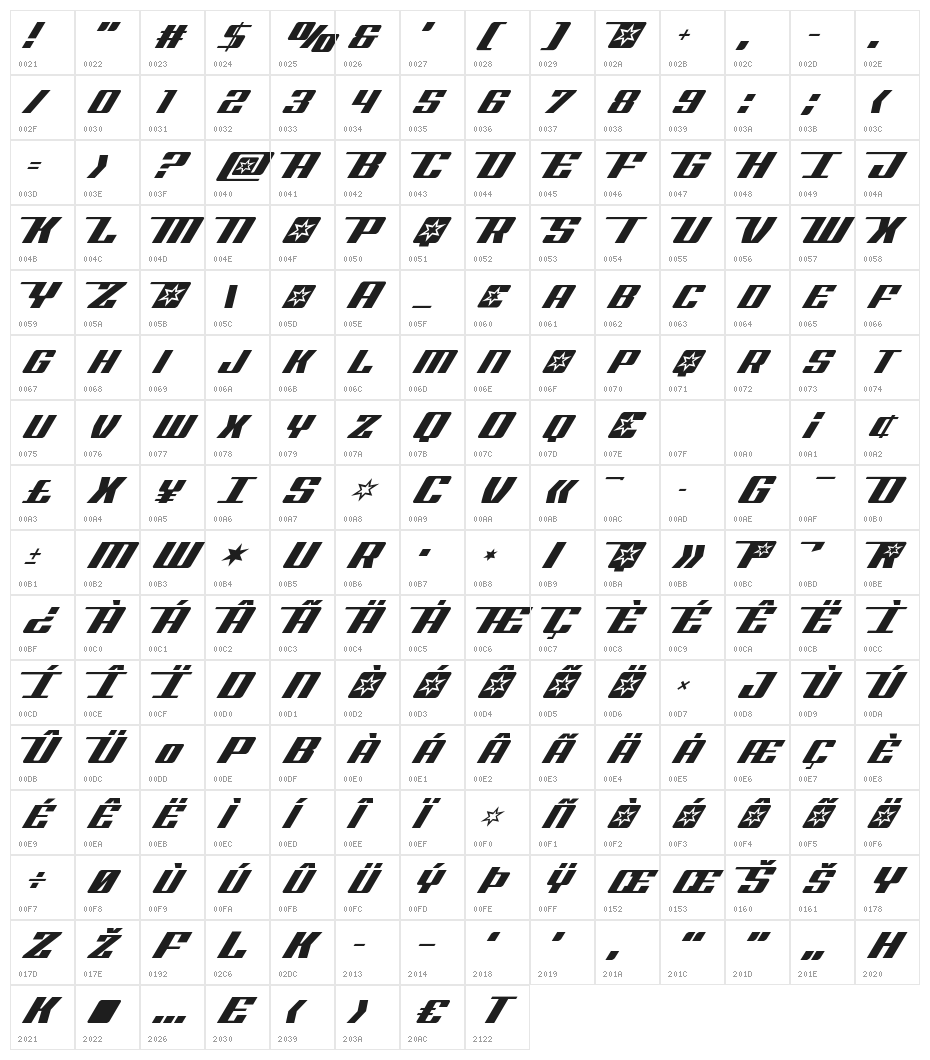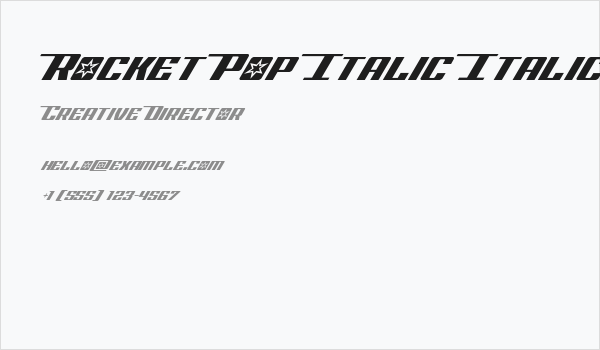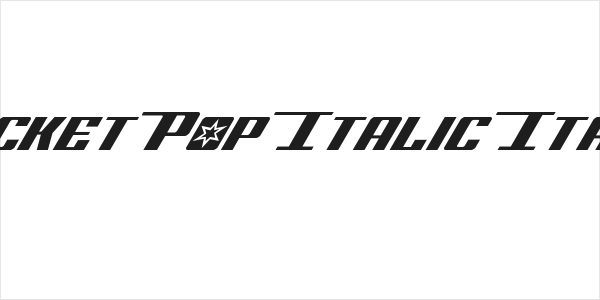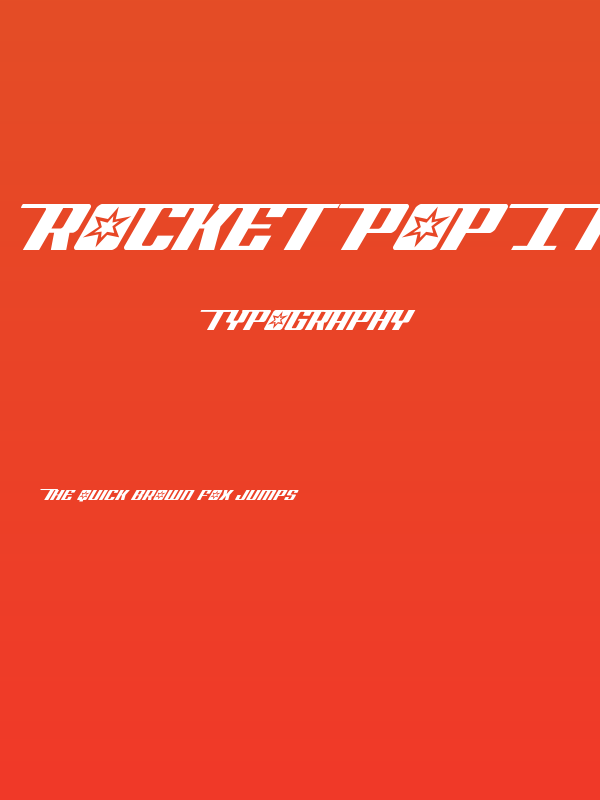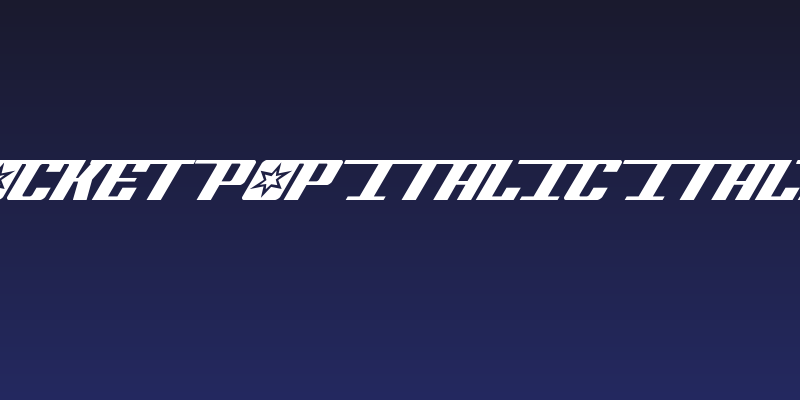
Rocket Pop Italic Italic Font
Rocket Pop Italic Italic Description
This font features a bold, italicized style with a distinct futuristic and dynamic appearance. The characters are sharply angled, giving a sense of movement and speed. The uppercase letters are particularly striking, with some characters incorporating star motifs, adding a unique decorative element. The numbers and special characters maintain the same bold and italicized style, ensuring consistency across all glyphs. The overall design is eye-catching and modern, making it suitable for projects that require a strong visual impact.
| Proposed Projects | Ideal for branding, sports team logos, video game titles, and any project needing a bold, modern look. |